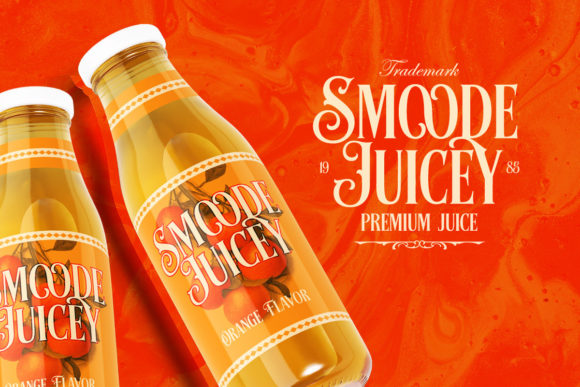
Richsten is a bold, stylish and majestic display font. It looks great on book titles, various logos or branding designs. The only limit is your imagination.
Richsten Font